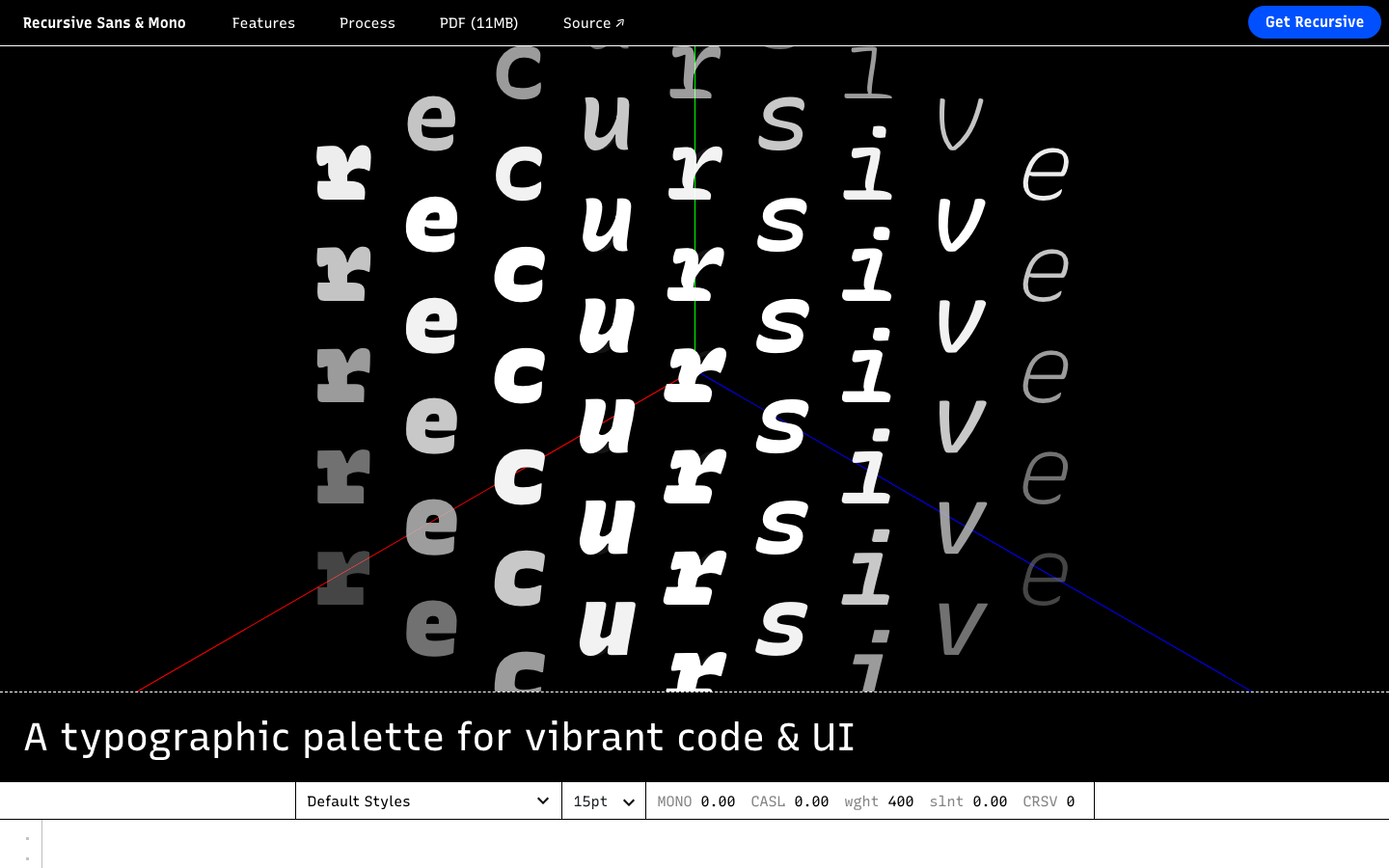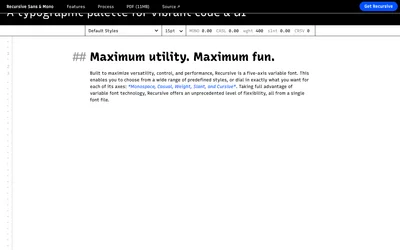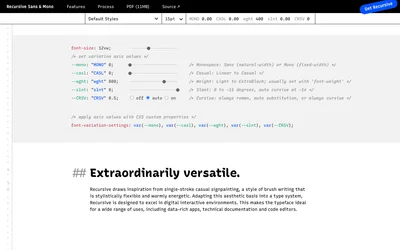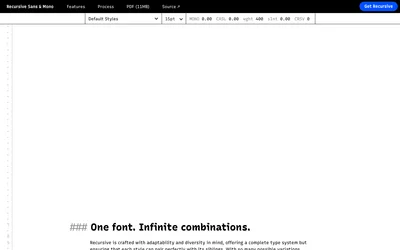
Monaco vs Recursive Mono
Monaco and Recursive Mono are both mono typefaces sharing a monospace foundation. Where Monaco leans tech, display, Recursive Mono brings modern. Compare these two premium fonts to decide which fits your design vision.
Design overlap:20%
| Feature | Monaco | Recursive Mono |
| Classification | mono | mono |
| Source | Apple Inc. | Arrow Type |
Typography for command-line interfaces, terminal emulators, and shell environmen...
Typography for code editors, terminals, and developer documentation. Code fonts ...
Recommended: Monaco
- tech, display design character
- Suited for Code Editors and Terminal
- From apple
Consider: Recursive Mono
- modern design character
- Suited for Code and Ui
- From arrow-type